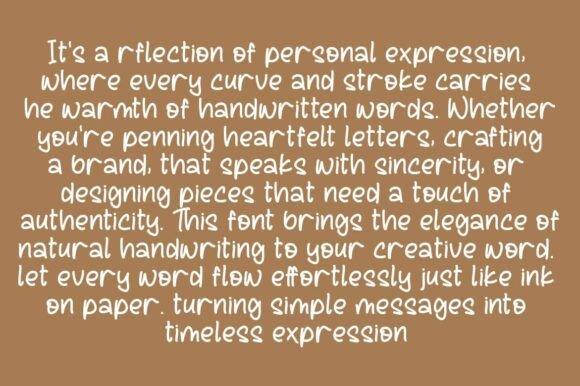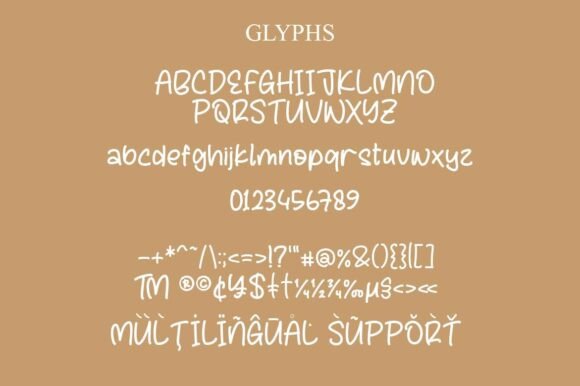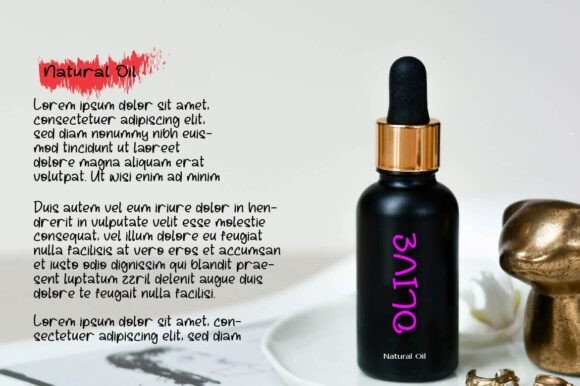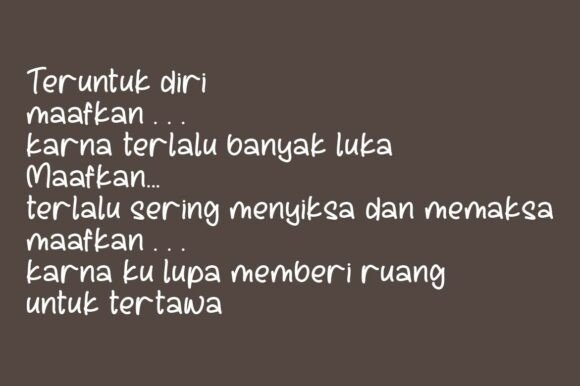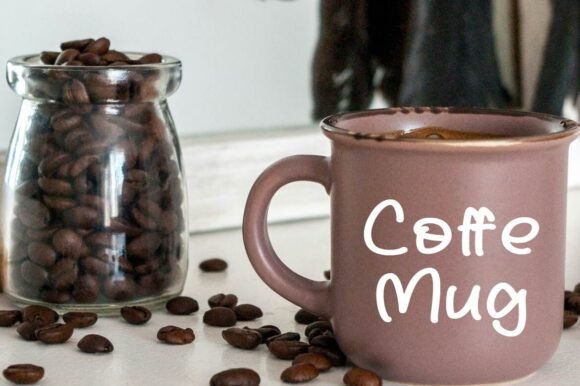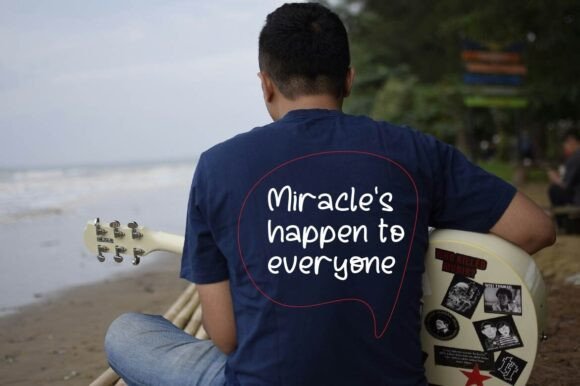
Introducing Happy Monday: The Perfect Cute Natural Handwritten Font for Your Designs
Are you tired of using the same old fonts for your designs? Do you want to add a touch of playfulness and authenticity to your projects? Look no further than Happy Monday, a beautiful and unique handwritten font that’s perfect for designers and crafters alike. In this article, we’ll introduce you to Happy Monday and explore the many ways you can use it to elevate your designs.
What is Happy Monday?
Happy Monday is a cute natural handwritten font that embodies the carefree spirit of a Monday morning (or any day of the week, for that matter!). It’s a one-of-a-kind font that’s been carefully crafted to bring a smile to your face and a touch of whimsy to your designs. With its playful and authentic feel, Happy Monday is the perfect choice for a wide range of projects, from blog posts and logos to branding and advertising.
Key Features of Happy Monday
So what makes Happy Monday so special? Here are just a few of its key features:
- Cute and playful: Happy Monday is a font that’s sure to put a smile on your face. Its playful and carefree design makes it perfect for projects that need a touch of whimsy.
- Natural and authentic: Unlike some fonts that can look stiff or artificial, Happy Monday has a natural and authentic feel that’s perfect for designers who want to add a human touch to their projects.
- Versatile: Happy Monday is a versatile font that can be used for a wide range of projects, from blog posts and social media graphics to logos and branding.
- Easy to read: Despite its playful design, Happy Monday is still easy to read, making it perfect for projects that require a lot of text.
How to Use Happy Monday in Your Designs
So now that you’ve met Happy Monday, let’s talk about how you can use it in your designs. Here are just a few ideas to get you started:
- Blog posts: Add a touch of personality to your blog posts with Happy Monday. It’s perfect for headings, subheadings, and even body text.
- Logos and branding: Happy Monday is a great choice for logos and branding projects. Its playful and authentic design makes it perfect for businesses that want to stand out from the crowd.
- Social media graphics: Happy Monday is also perfect for social media graphics, including Facebook posts, Instagram stories, and Twitter headers.
- Invitations and greeting cards: Add a personal touch to your invitations and greeting cards with Happy Monday. It’s perfect for weddings, birthdays, and other special occasions.
- Planners and journals: Happy Monday is also a great choice for planners and journals. Its playful design makes it perfect for adding a touch of personality to your daily or weekly spreads.
Tips for Getting the Most Out of Happy Monday
Here are a few tips for getting the most out of Happy Monday:
- Experiment with different colors: Happy Monday looks great in a variety of colors, so don’t be afraid to experiment and find the perfect hue for your project.
- Mix and match with other fonts: Happy Monday also pairs well with other fonts, so feel free to mix and match it with your favorite fonts to create a unique look.
- Use it consistently: To get the most out of Happy Monday, try to use it consistently throughout your project. This will help create a cohesive look and make your design stand out.
In conclusion, Happy Monday is a unique and versatile font that’s perfect for designers and crafters alike. Its playful and authentic design makes it perfect for a wide range of projects, from blog posts and logos to branding and advertising. With its ease of use and flexibility, Happy Monday is sure to become a favorite in your font collection. So why wait? Add Happy Monday to your designs today and see the difference it can make!
Whether you’re a seasoned designer or just starting out, Happy Monday is a great addition to your font library. Its unique and playful design is sure to bring a touch of personality to your projects, and its versatility makes it perfect for a wide range of applications. So go ahead, give Happy Monday a try, and see how it can elevate your designs!